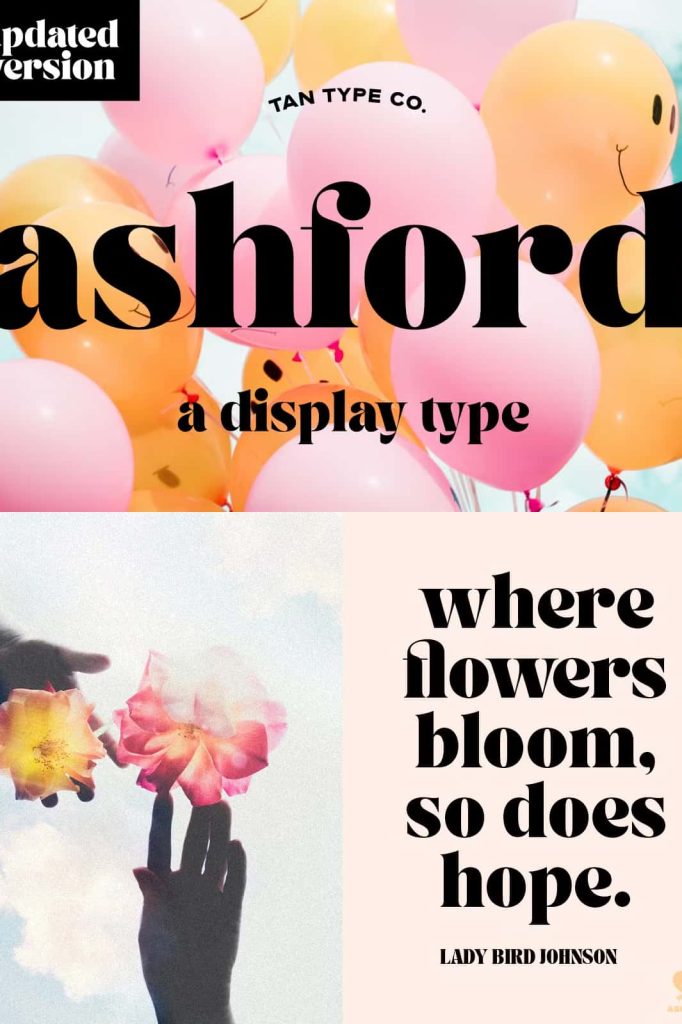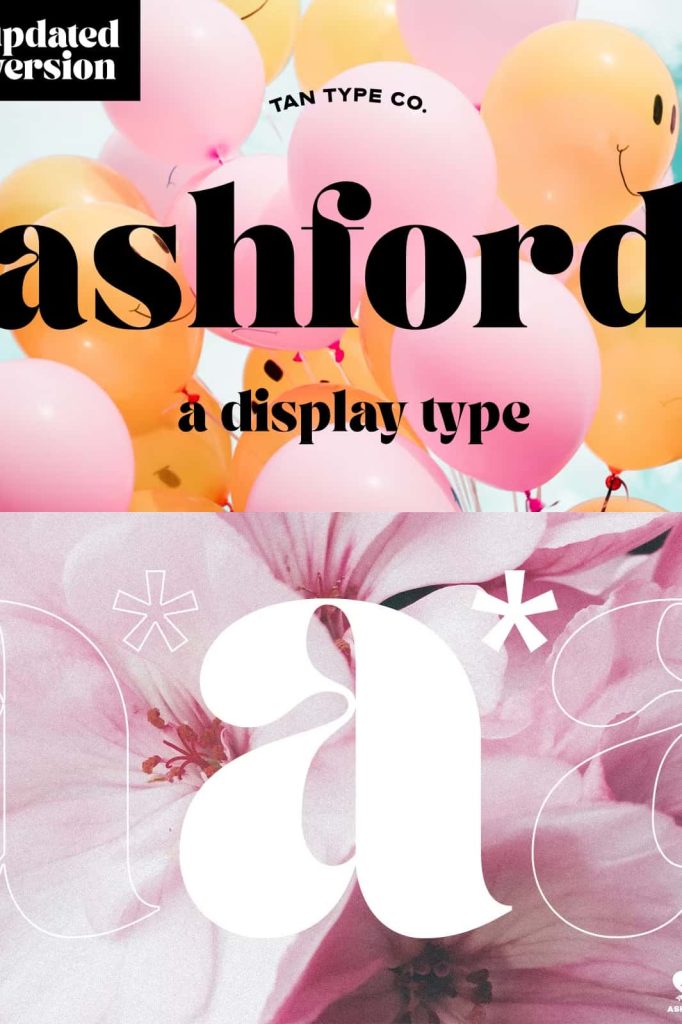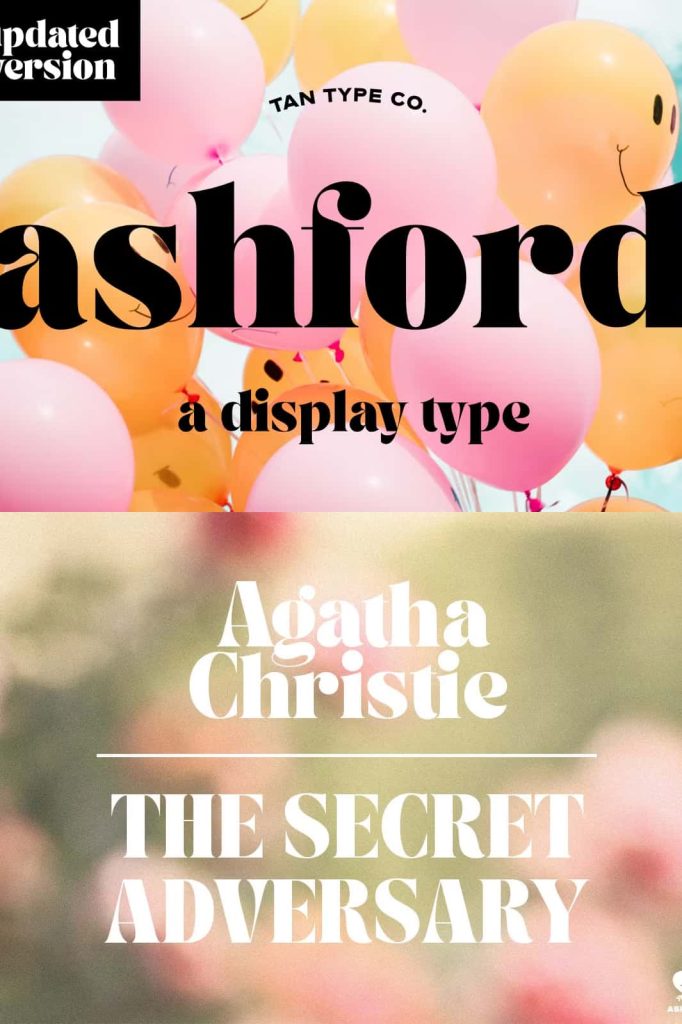
TAN – ASHFORD (updated!)leastedApril 3, 2025Fonts TAN – ASHFORD is a bold serif with high contrast, making it a versatile and elegant typeface. Download